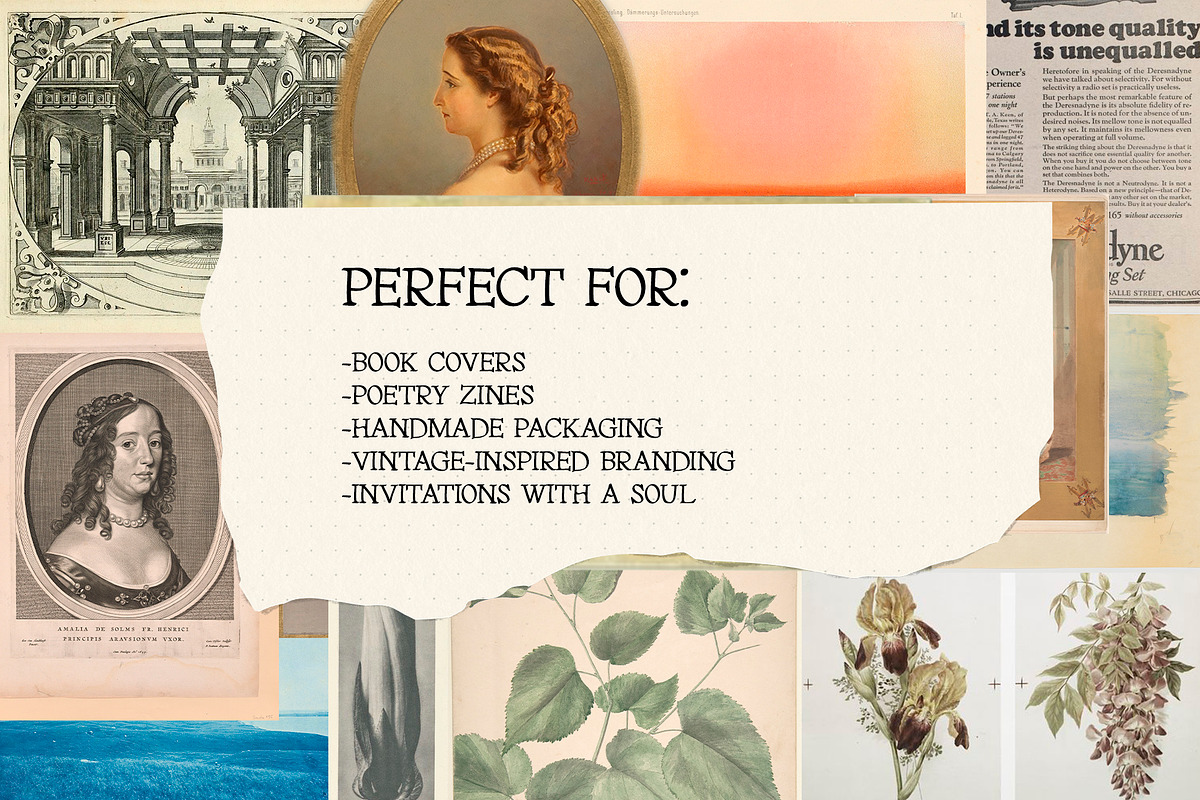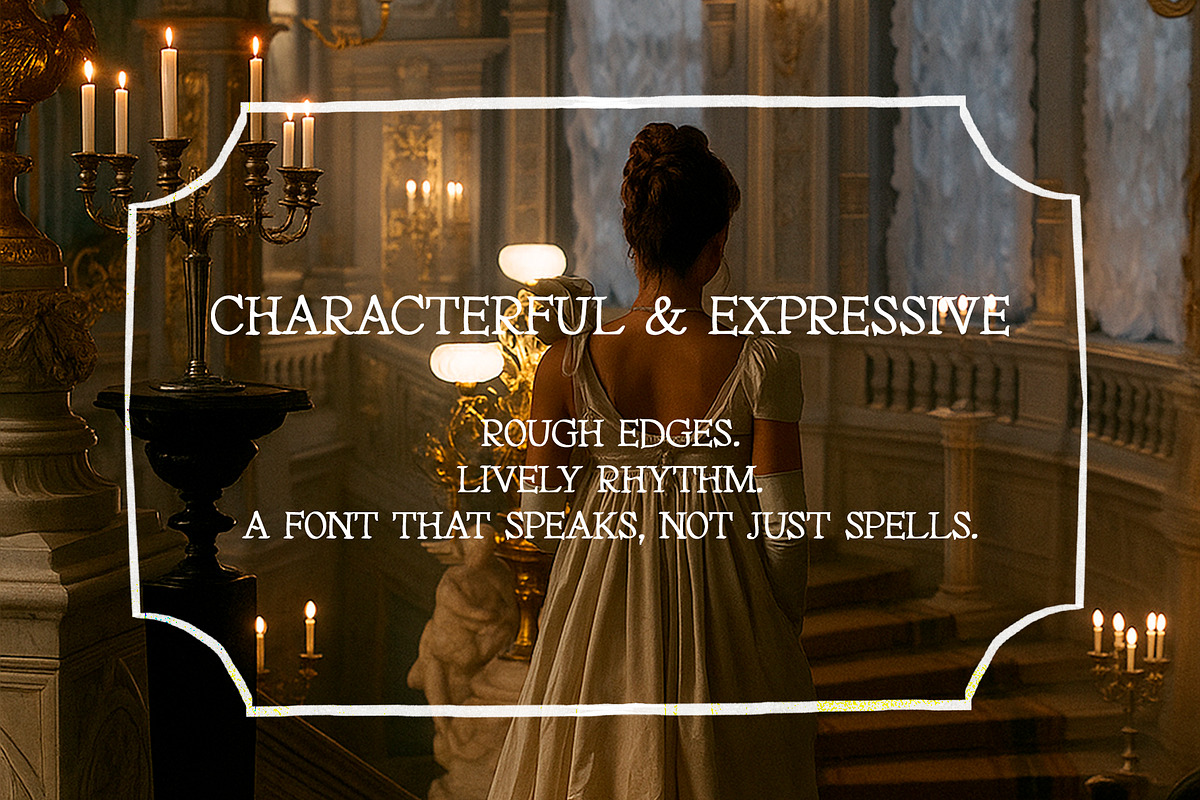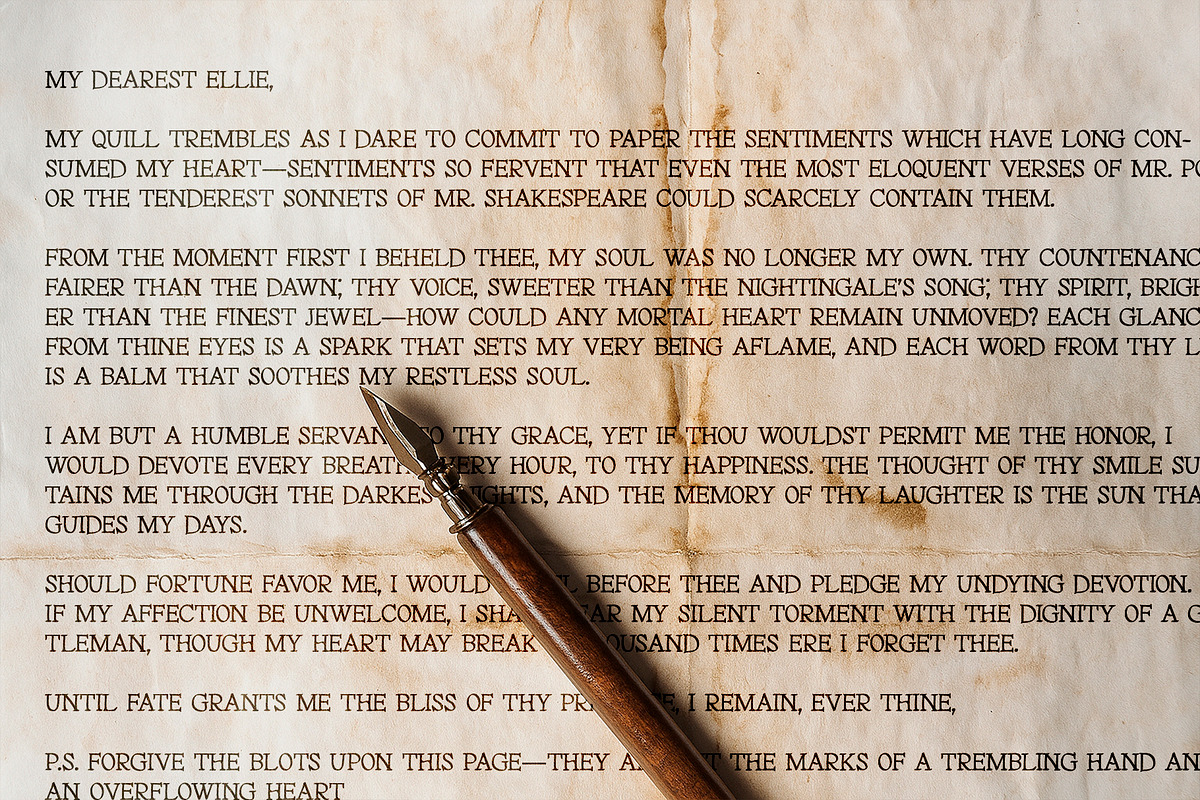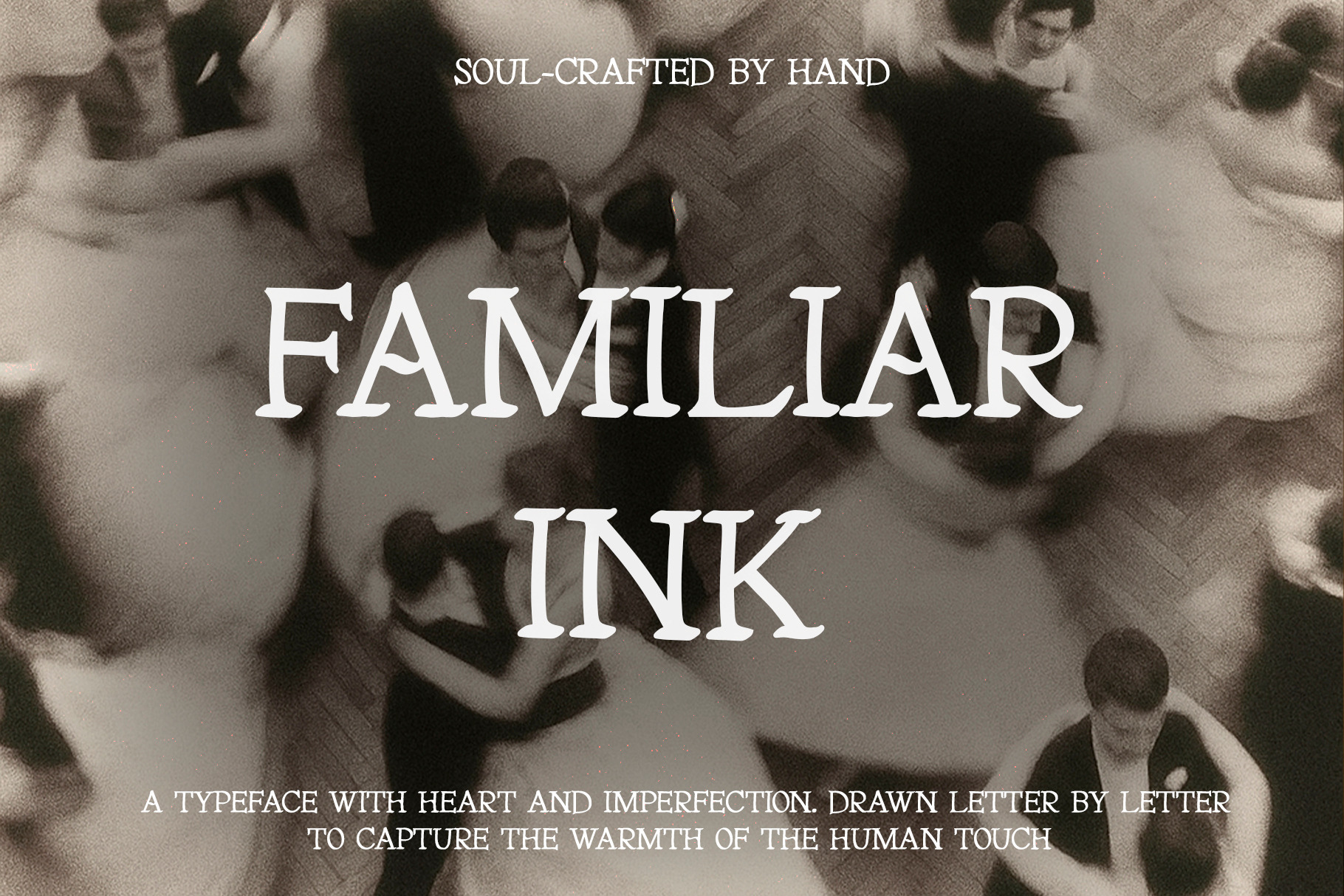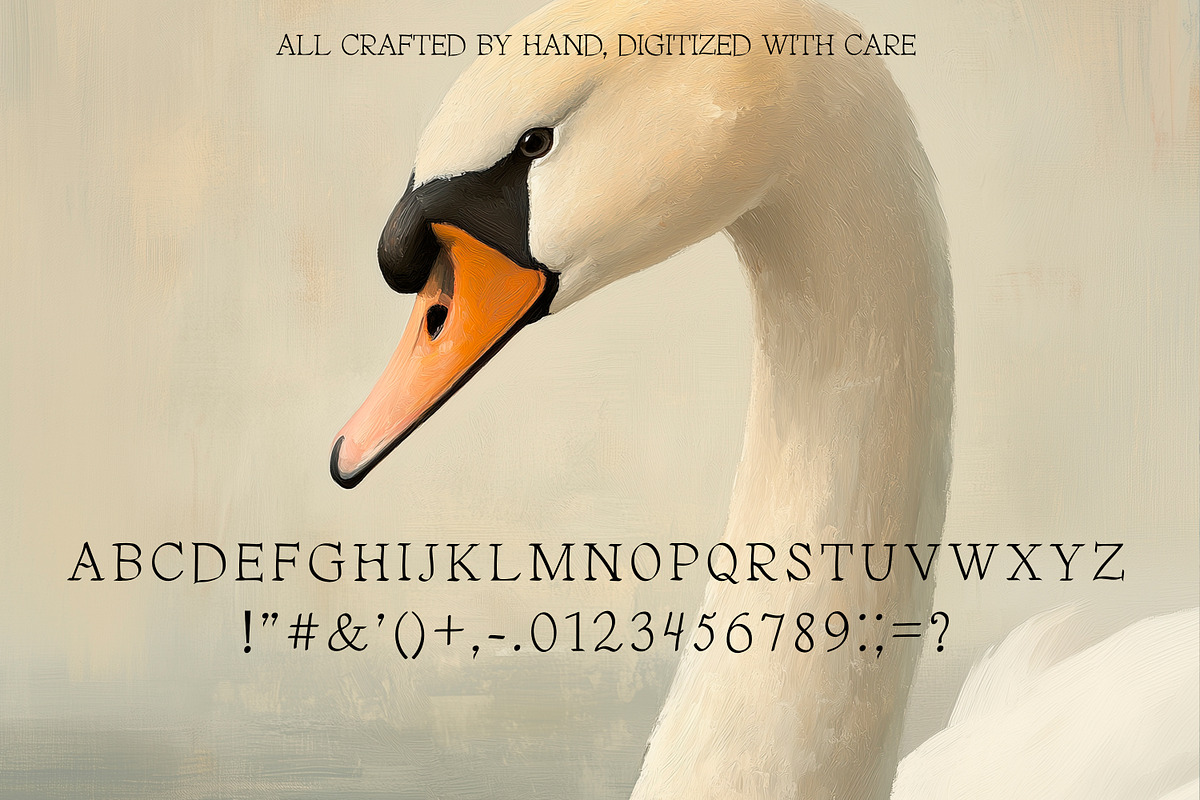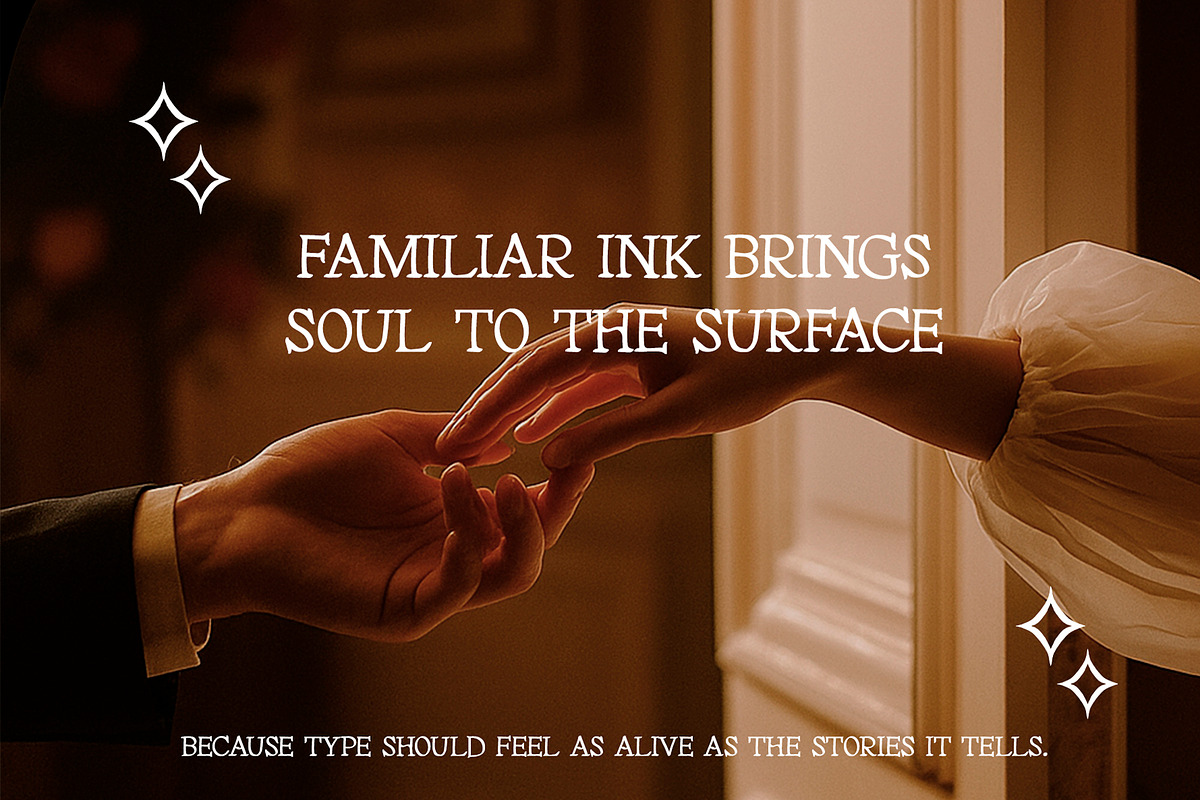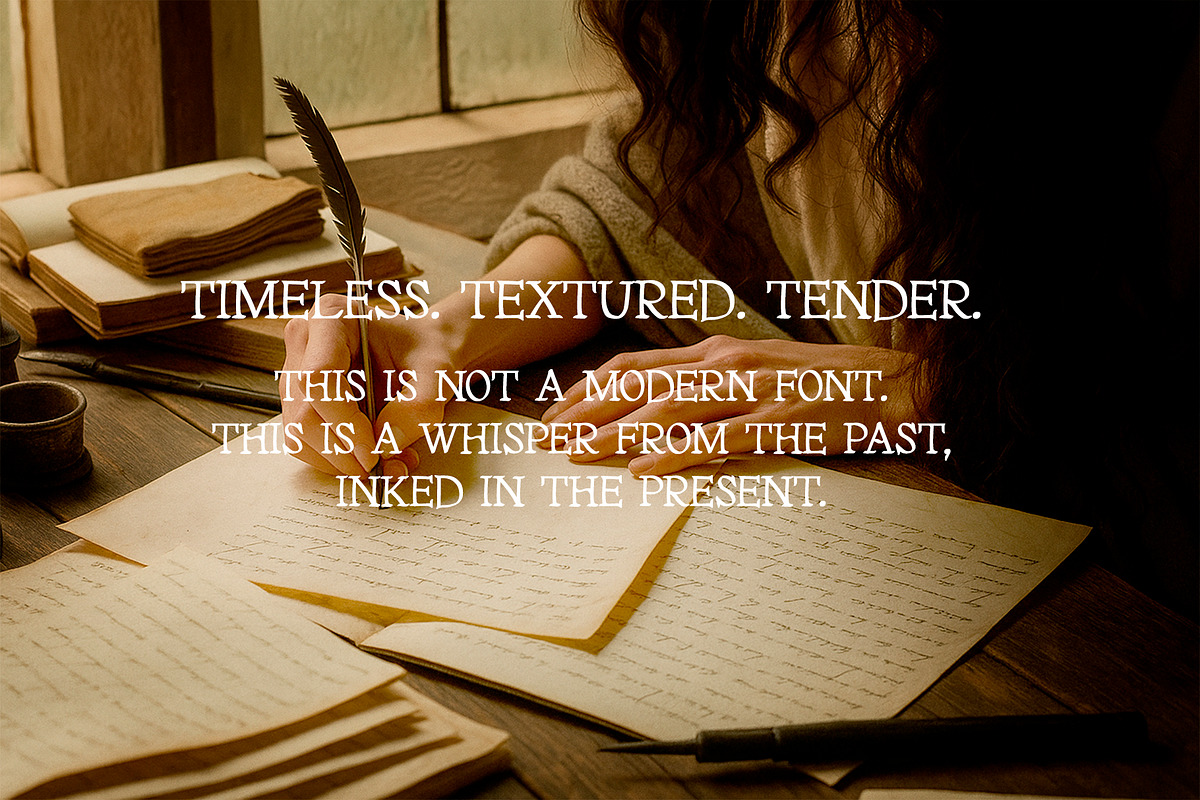
Familiar Ink. Hand-drawn Serif Font
Familiar Ink - Hand-drawn Serif Typeface
Familiar Ink is more than a font — it’s a quiet whisper from the past. Lovingly hand-drawn on paper, this typeface carries the human touch in every letter. Each character is slightly irregular, textured, and soulful — like the inked lines of an old letter tucked inside a forgotten book. Inspired by vintage journals, poetry, and the imperfect beauty of handwriting, Familiar Ink is made for designs that need warmth, character, and a touch of nostalgia. Whether you're working on antique-inspired branding, heartfelt invitations, zines, book covers, or personal projects, this typeface will bring a human voice to your words.
Make your designs feel handwritten, imperfect, and truly personal — with Familiar Ink